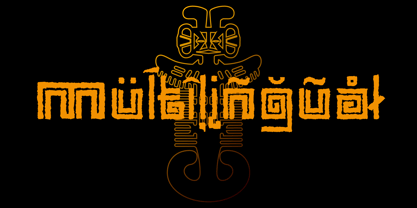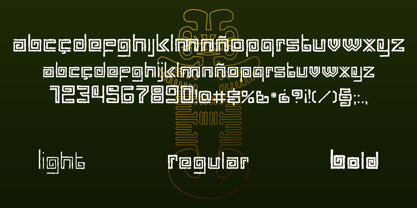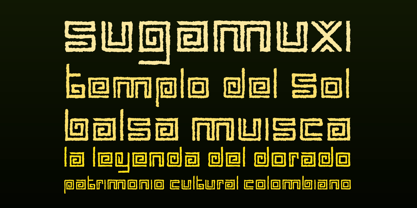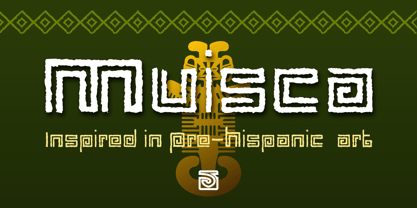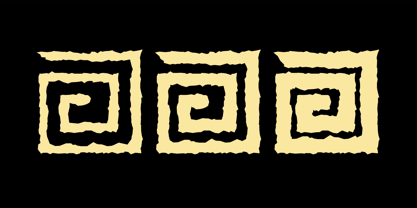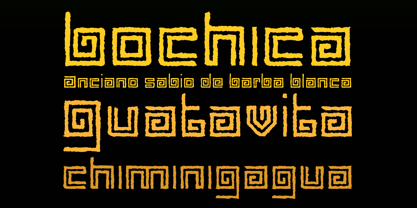
Muisca™
by JVB Fonts
The Muisca Font Family was designed by John Vargas Beltrán and published by JVB Fonts. Muisca contains 3 styles and family package options.
Muisca, that in its early edition was named as «Muisca Sans», was developed in mid-1997 and based on the graphic concept of pre-Columbian characteristics figures within some of the very few visual elements recovered from the Muisca culture. This ancient pre-Columbian tribe disappeared since the arrival of the Spanish 500 years ago, in what is now the center of Colombia. In fact, the name of the capital Bogotá goes back to Bacatá as primary or village downtown of what was once the imperial capital of the Muisca tribe. This typographic project was submitted as my work for the degree in Graphic Design, obtained in September of that year (at the Universidad Nacional de Colombia), under the creative concept of vindicating the ancient culture and identity through a functional typeface, into a fact without precedent in the country. Muisca was recently edited, arranged and completed, including multilingual diacritic glyphs to be versatile in several languages. Related and inspired by Latin America, Ethnic, Native, Tribal, Mysthical, Handmade, Aboriginal, Pre-Hispanic, Pre-Columbian, Textured, Fantasy. Ideal to be used in logos, display text & titles, games and other design applications that reminds of the Pre-Hispanic art.